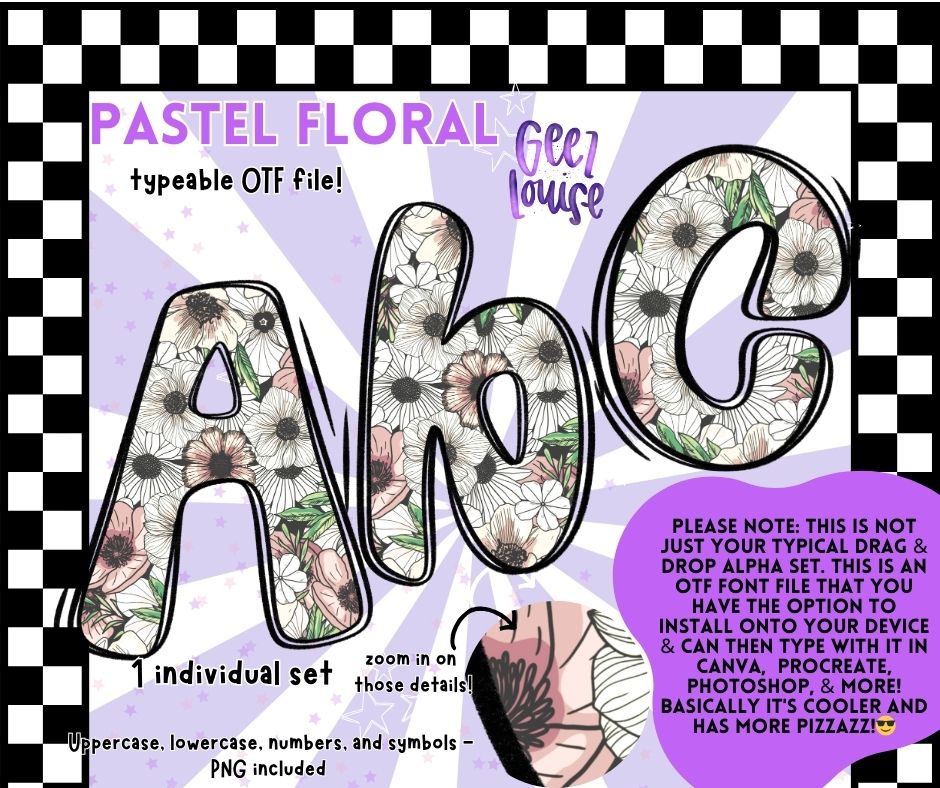
Pastel Floral - TYPEABLE OTF Font - Alpha Set - Digital Download- PNG
Pastel Floral – Elegant OTF Font + PNG Alpha Set | Soft Bloom Lettering
Add a delicate, dreamy touch to your creations with Pastel Floral – a gorgeous typeable OTF font blooming with soft floral charm. Each letter is filled with hand-illustrated flowers in calming pastel tones, perfect for romantic designs, spring projects, weddings, and all things pretty! 🌿🌷
✅ Detailed pastel floral patterns in every character
✅ Great for stationery, branding, greeting cards, and feminine designs
🌼 Soft, stylish, and full of personality
🎨 Ideal for spring and floral-themed creations
✨ Adds elegance and handcrafted beauty to your projects